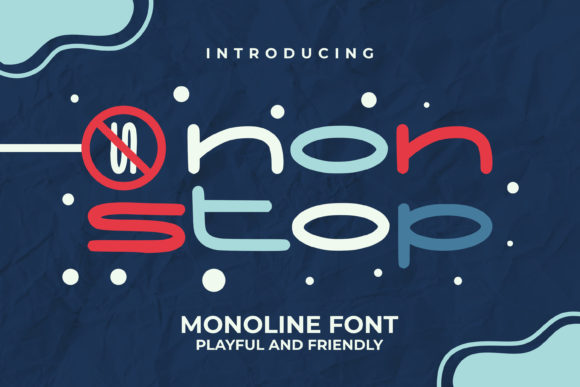
Welcome to the enchanting realm of Non Stop, a display font that will ignite your creativity and captivate your audience. With its playfully casual and distinctively modern flair, Non Stop transcends the boundaries of ordinary fonts, beckoning you to step into a world of endless imagination and captivating designs.
Non Stop is the font that speaks to the heart of sign makers, offering an array of possibilities to showcase your message with style and impact. Its whimsical charm and vibrant energy will breathe life into your signage, making your words dance and come alive. Imagine the allure of your storefronts, the vibrancy of your billboards, and the irresistible call-to-action of your flyers. With Non Stop, the world becomes your canvas, and your message becomes a masterpiece.
But Non Stop's magic extends far beyond the realm of signage. Its versatility knows no bounds, making it the perfect companion for any design project that seeks to capture attention and leave a lasting impression. Let Non Stop add a touch of whimsy to your website headers, a dash of fun to your social media graphics, or an irresistible charm to your branding materials. The possibilities are limitless, bound only by the depths of your imagination.
Non Stop is a font that speaks to the child within us, evoking a sense of nostalgia and wonder. Its playful characters dance across the page, inviting you to embrace your inner creativity and let your imagination soar. Whether you're a seasoned designer or just starting your artistic journey, Non Stop empowers you to create designs that captivate and inspire. Its user-friendly nature and boundless versatility make it the perfect choice for both personal and professional projects.
So, if you yearn to unleash your creativity, to create designs that resonate with your audience, and to embark on a journey where imagination reigns supreme, then look no further than Non Stop. This enchanting display font awaits your touch, ready to transform your designs into unforgettable masterpieces.